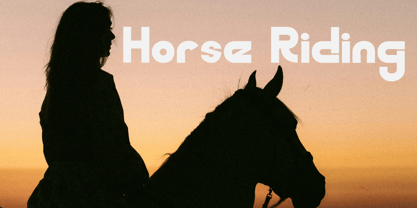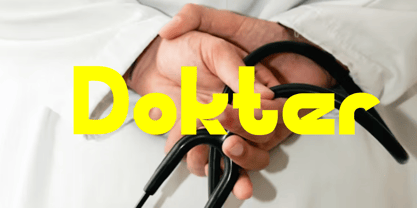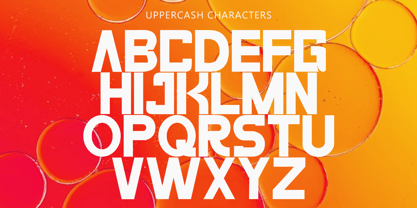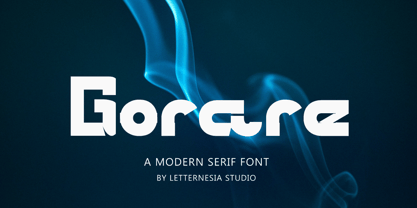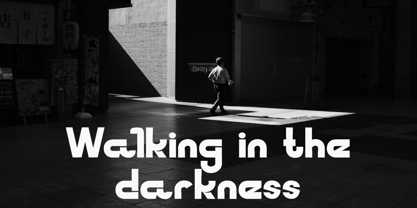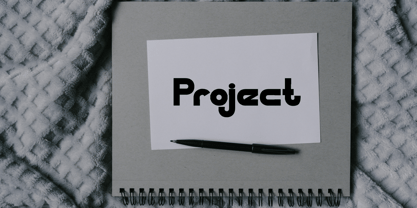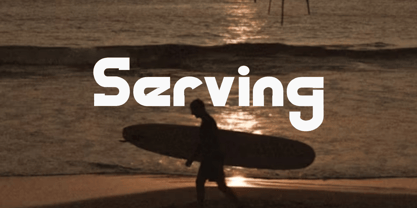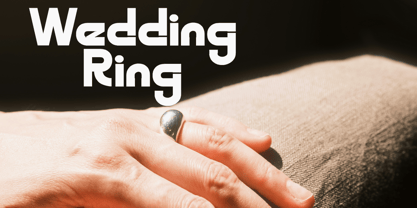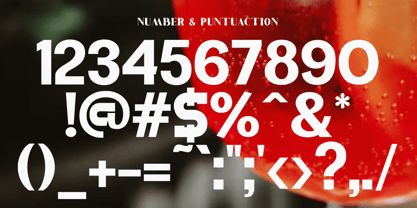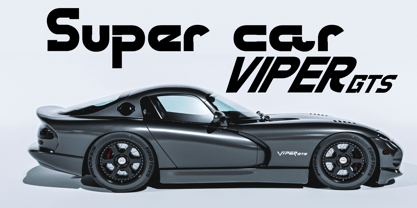
Gorare
by Letternesia studio
The Gorare Font Family was designed by Ta Siyo and published by Letternesia studio. Gorare contains 2 styles and family package options. More about this family
Gorare is a modern display font that blends geometric strength with a touch of futuristic elegance. Inspired by the fusion of the words “GoCar” and “Rare”, this font is crafted to convey speed, exclusivity, and bold visual identity. It's perfect for branding, headlines, automotive designs, posters, and creative projects that demand a standout look.
Each character in Gorare features sharp structure and confident design, making it ideal for designers who seek a unique and powerful typeface to elevate their visual content.
Designers: Ta Siyo
Foundry: Letternesia studio